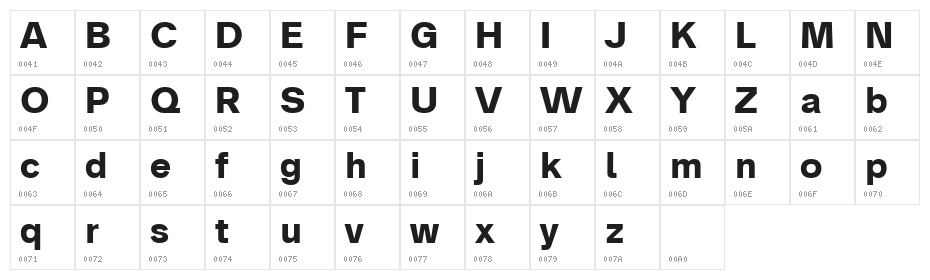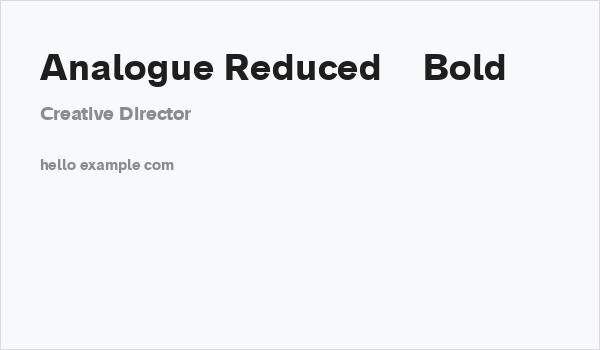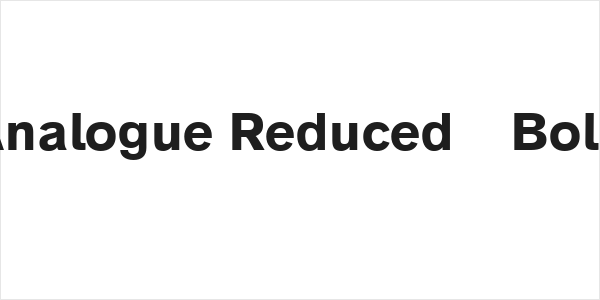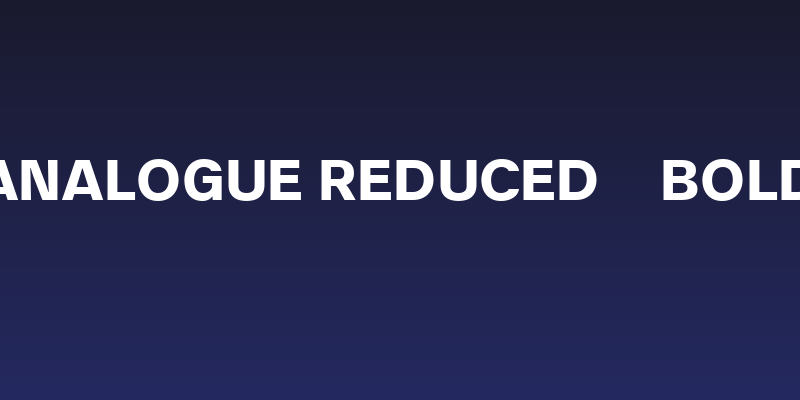
Analogue Reduced 75 Bold Font
Analogue Reduced 75 Bold Description
This font is a bold, sans-serif typeface characterized by its clean and modern appearance. The letters are uniform in width, providing a balanced and structured look. The uppercase and lowercase letters are well-defined, with consistent stroke thickness throughout. The font's simplicity and clarity make it highly legible, even at smaller sizes. It features a straightforward design with no decorative elements, focusing on functionality and readability. The characters are evenly spaced, contributing to its neat and organized presentation.
| Use Case | Headlines, Logos, Digital content |
| Proposed Projects | Ideal for branding, headlines, posters, and digital content where clarity and impact are essential. |